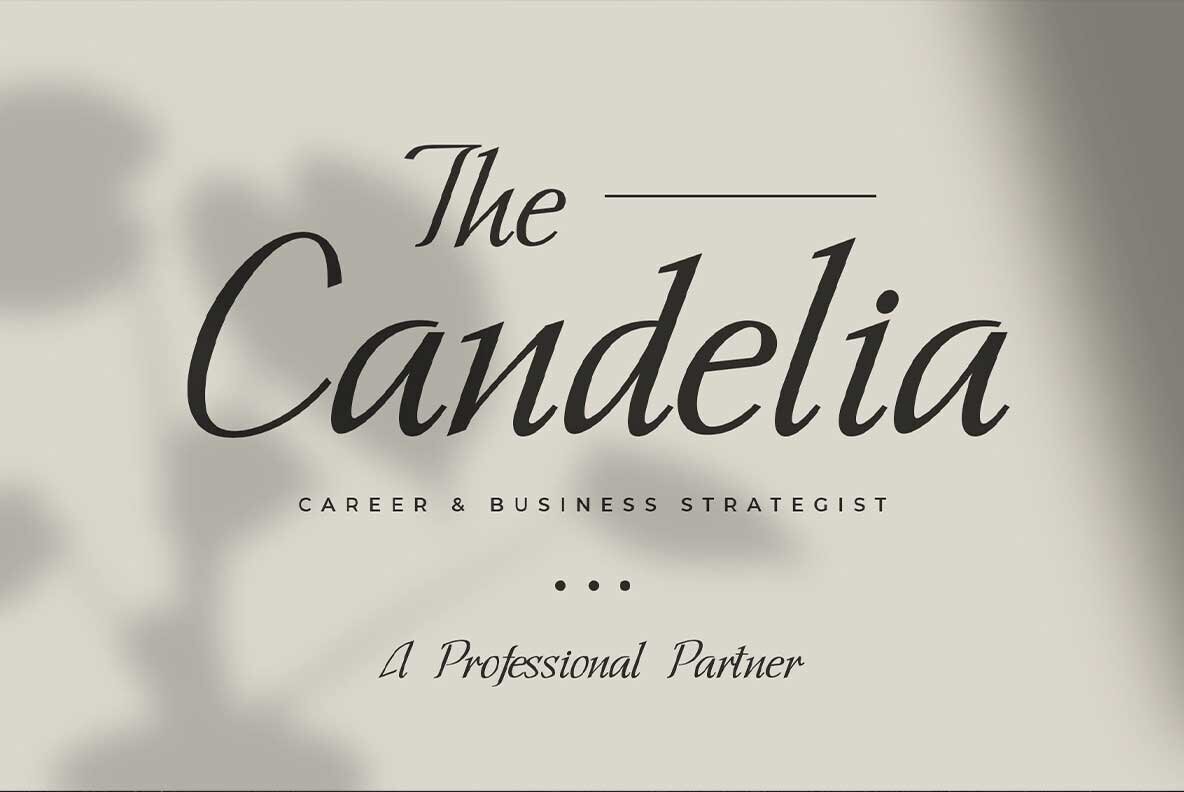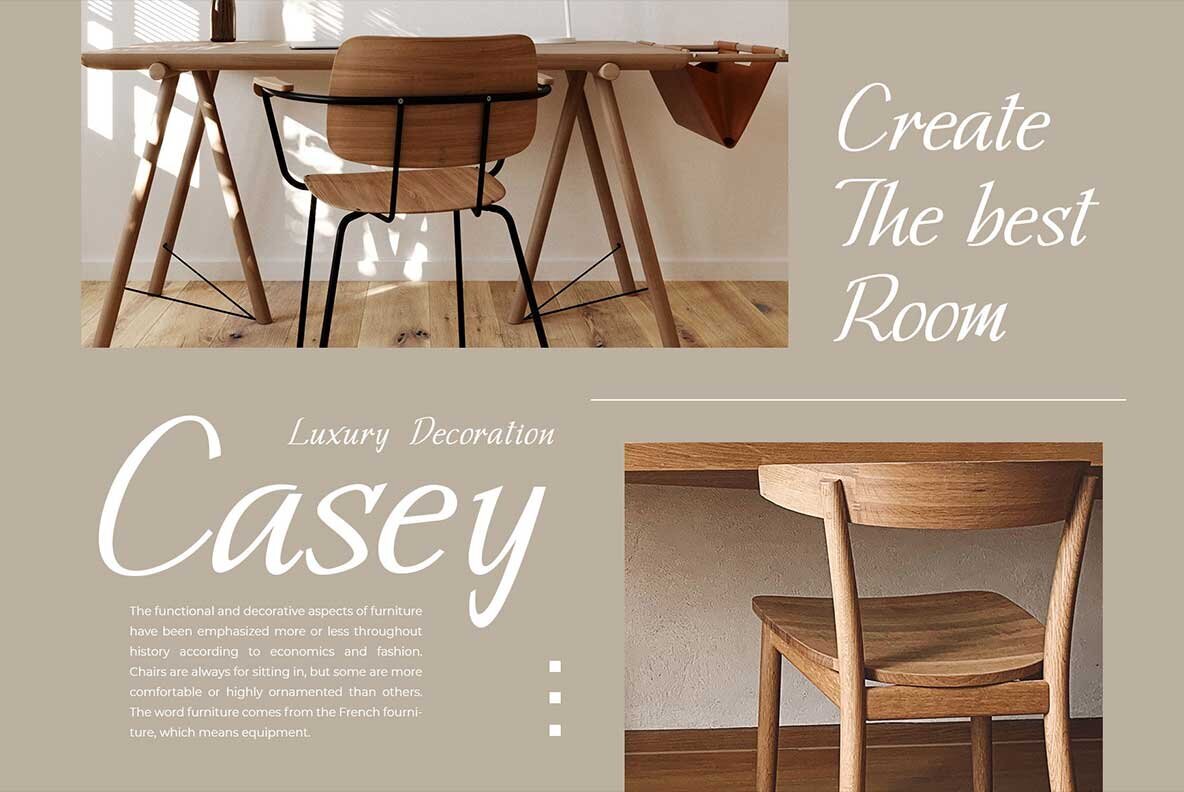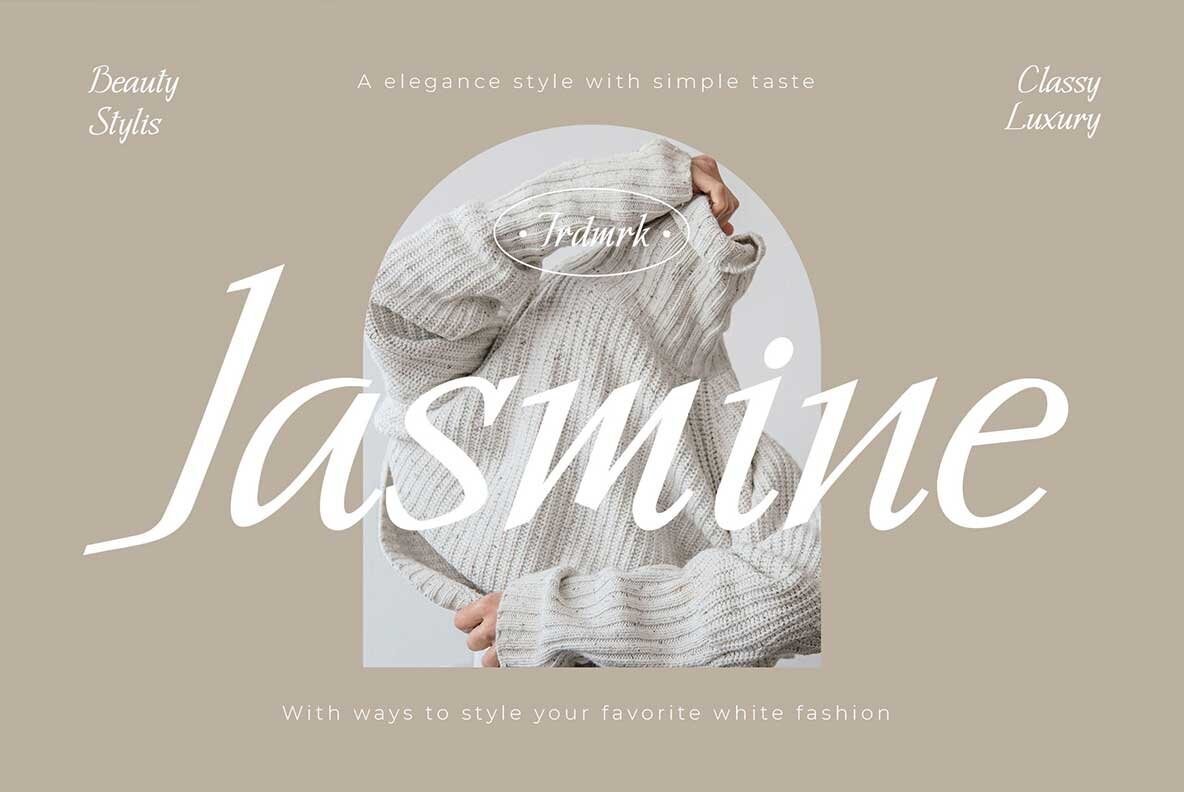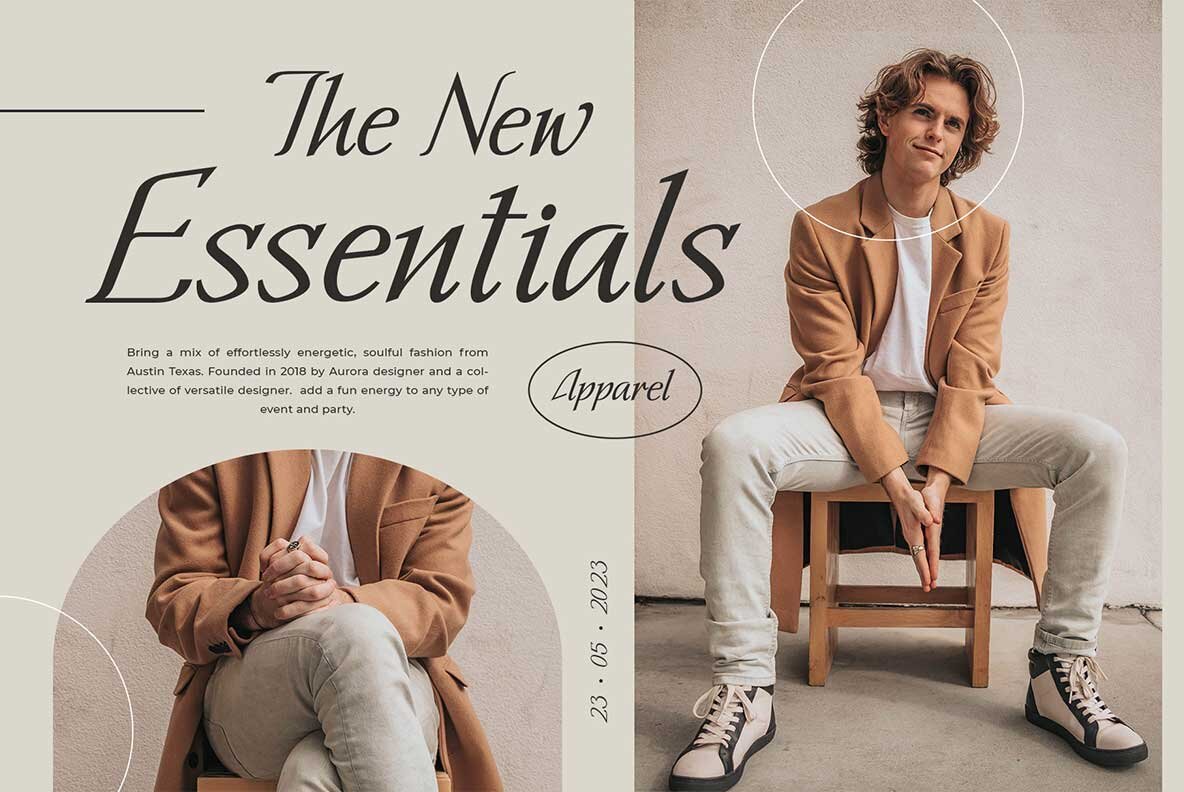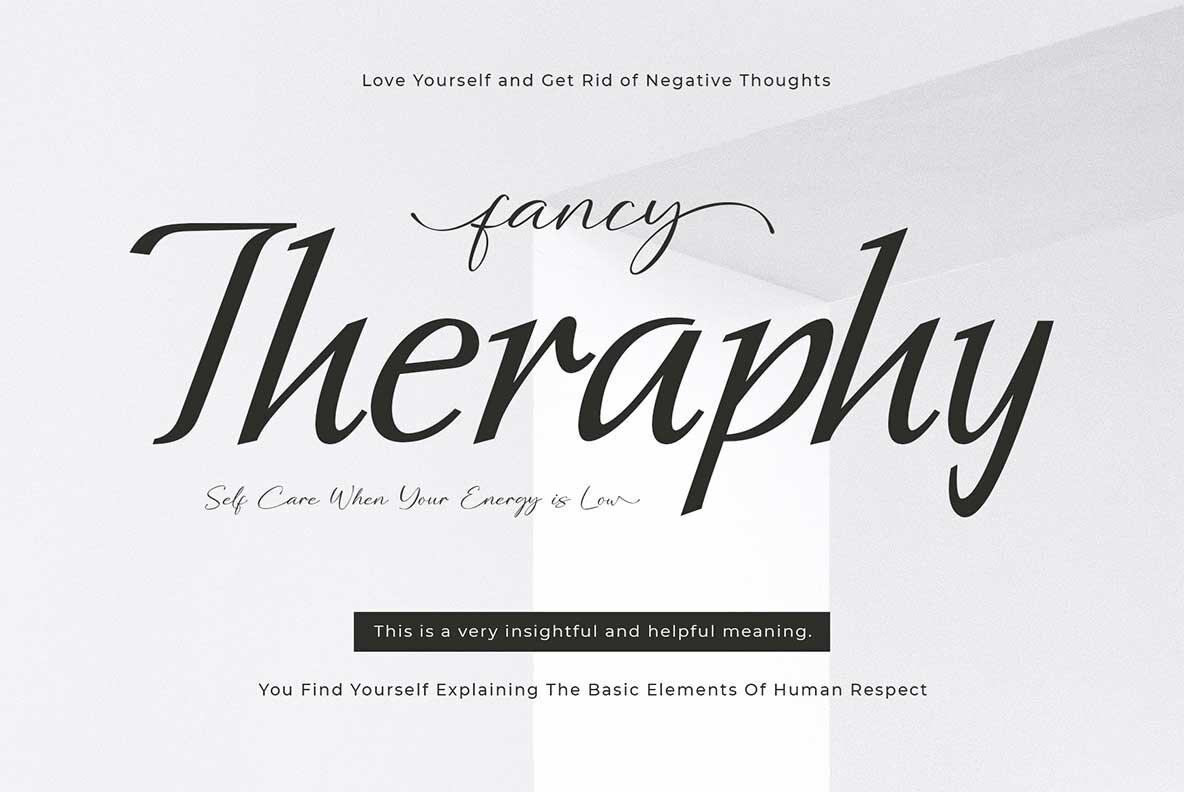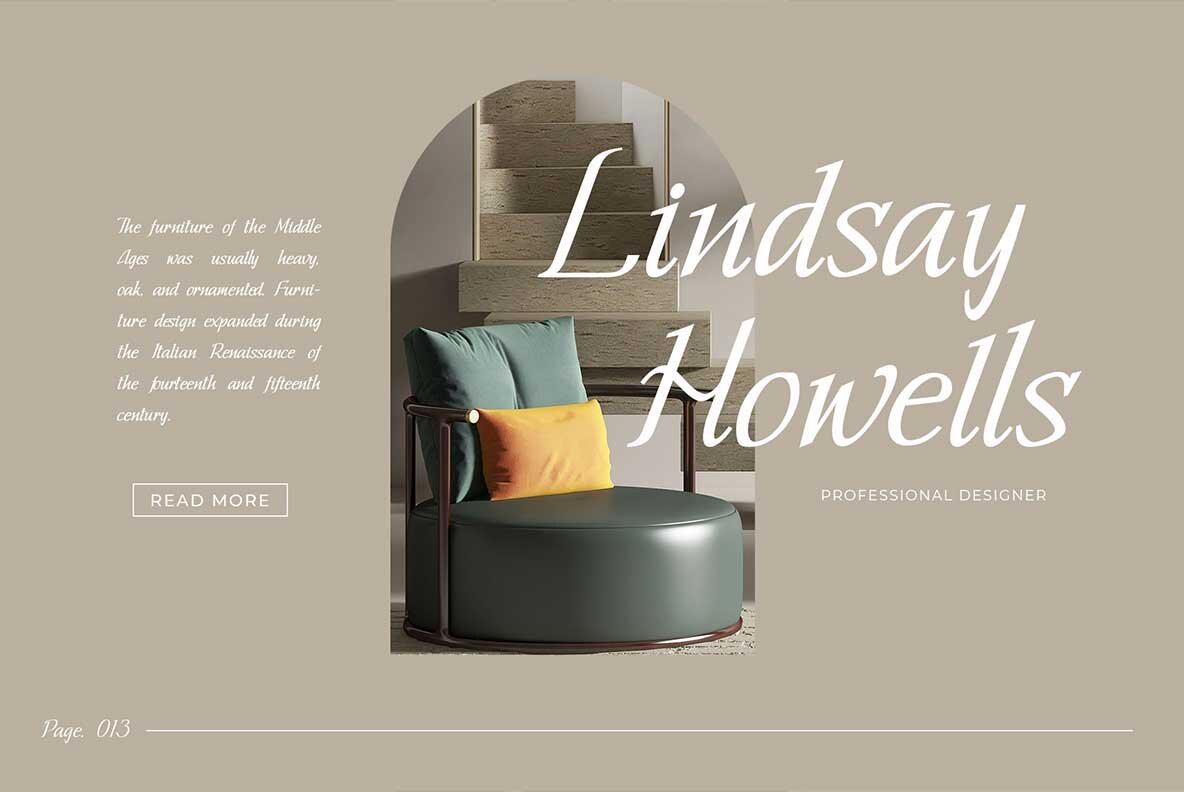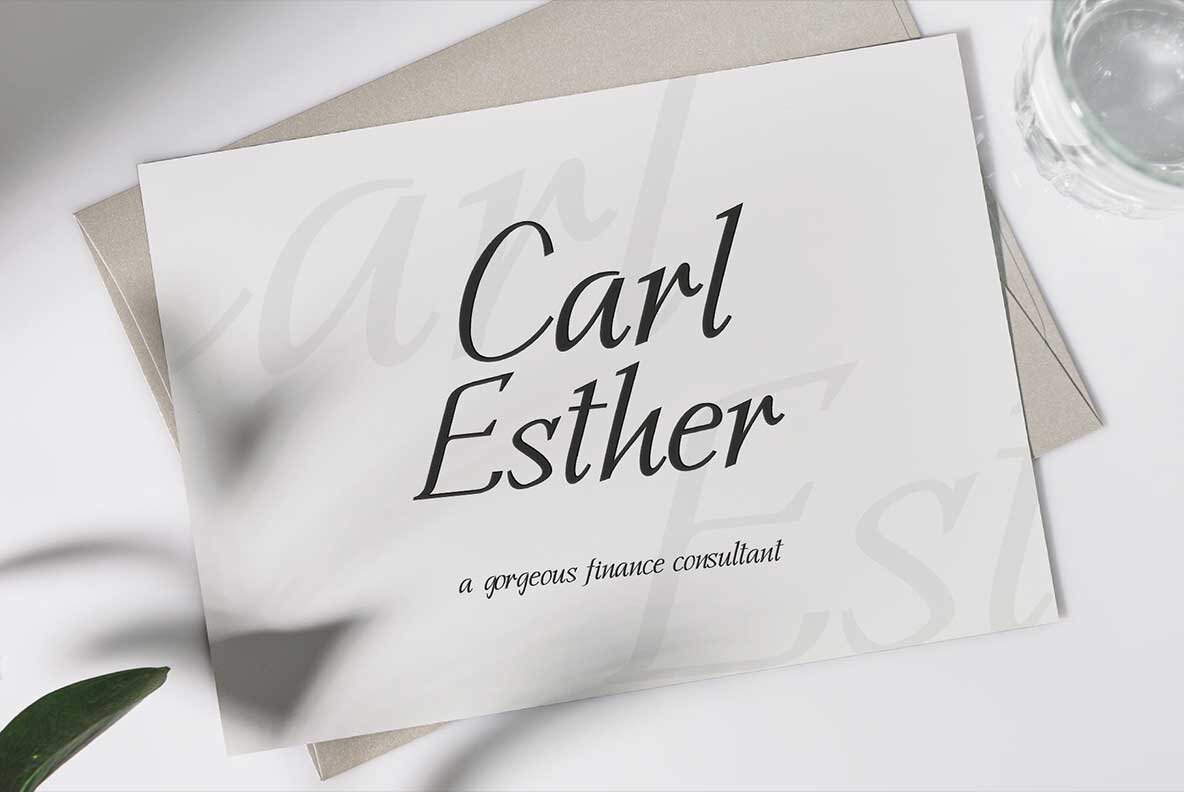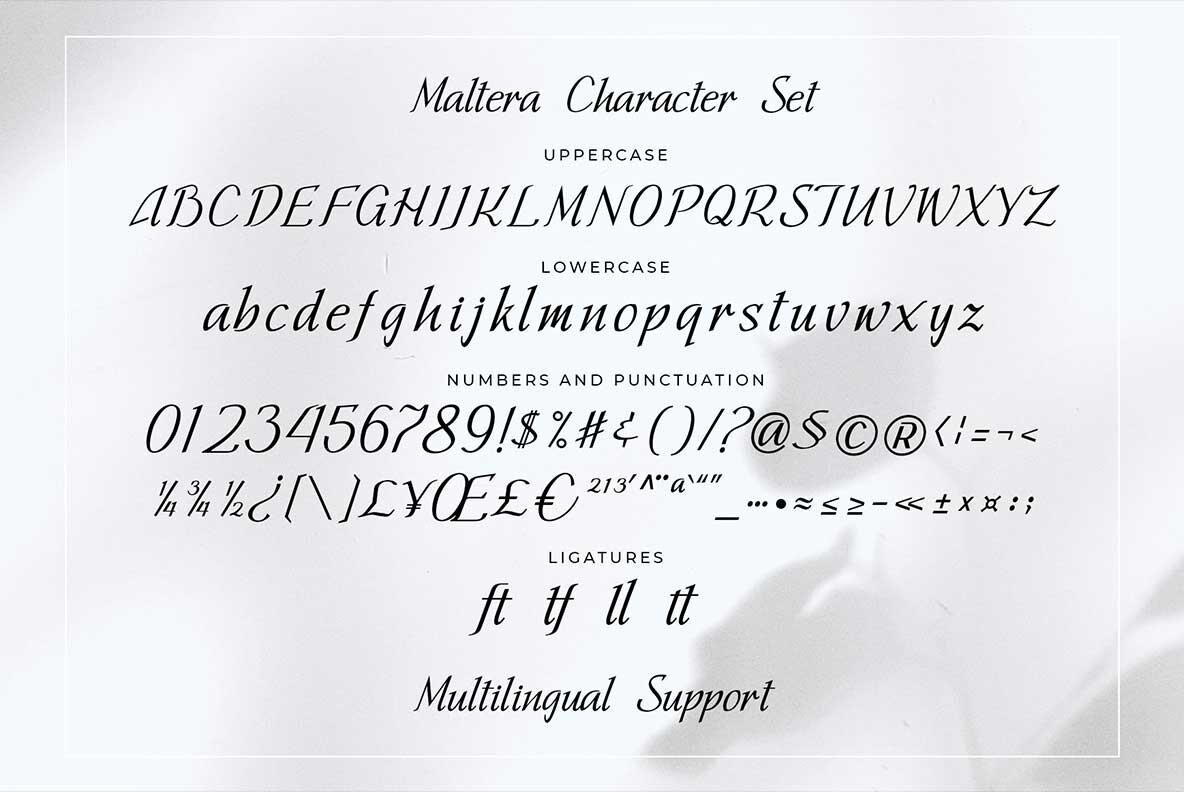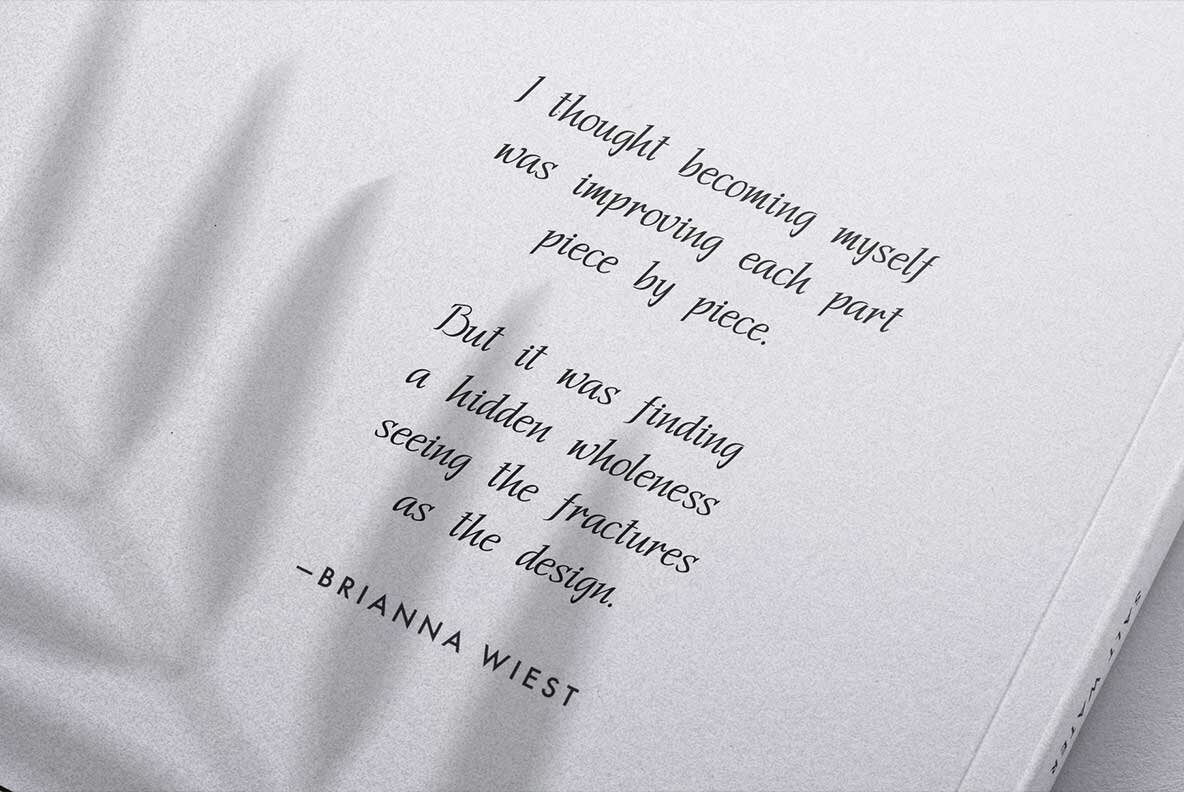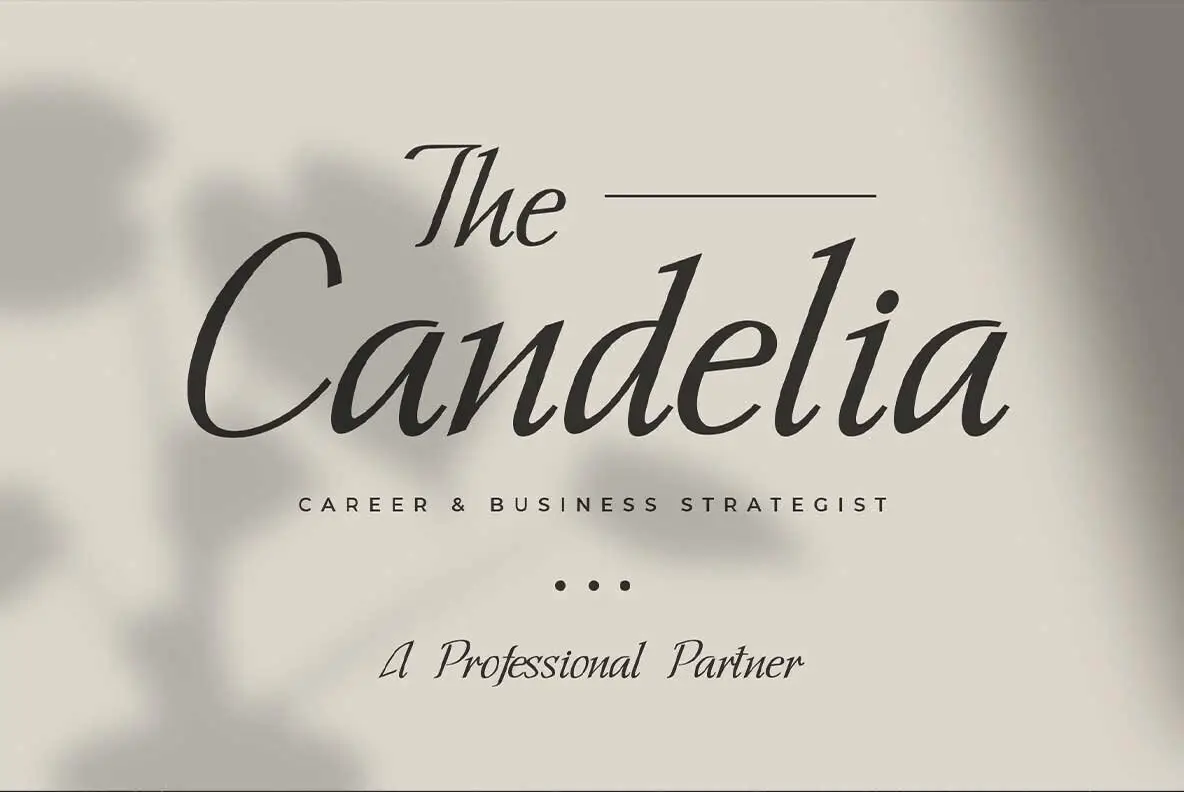
Maltera Font
Maltera Regular
Presenting Maltera, a serif font that exudes both elegance and modernity. Designed with distinctive letterforms, this font adds a touch of sophistication to any project. Its versatile nature makes it ideal for a range of design applications, from fashion and wedding invitations to branding and quotes. Transform your designs into captivating works of art with Maltera's classic yet contemporary appeal.Maltera: A Modern Serif Sensation